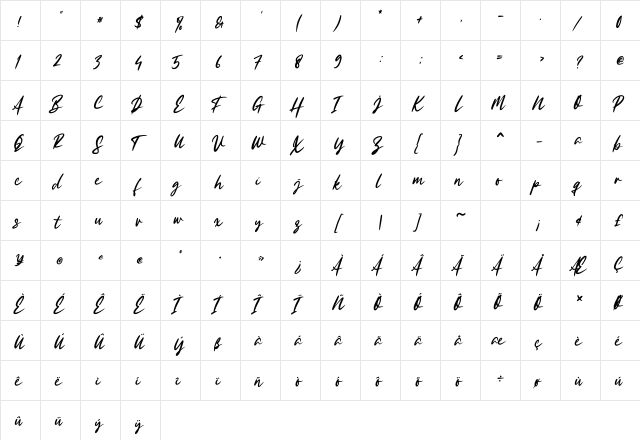
Efforita Regular
| Designer | Colllab Studio Team |
Design Context for Efforita Typeface
Efforita is a composed and adaptable typeface that performs quietly and consistently across a wide range of design contexts.